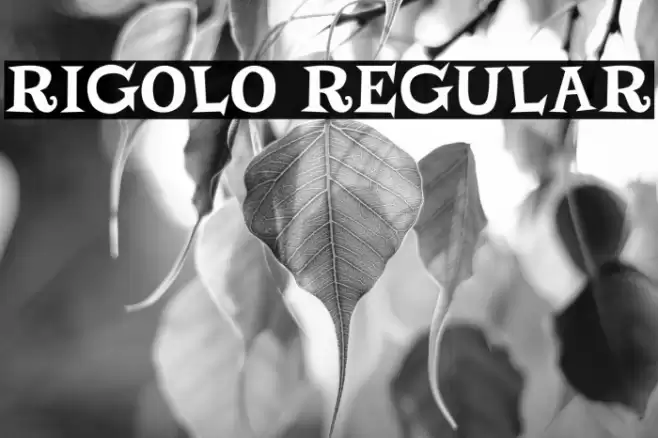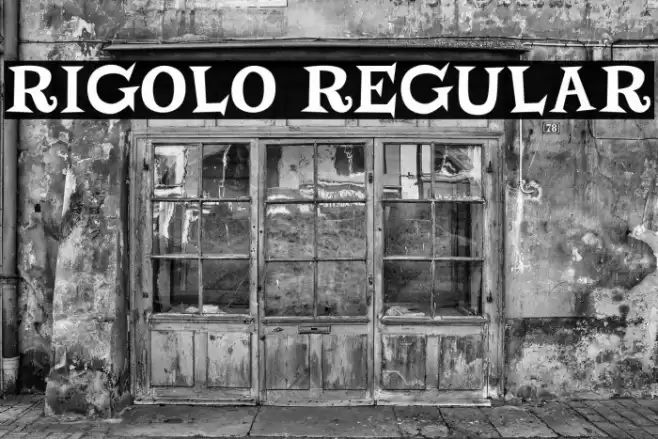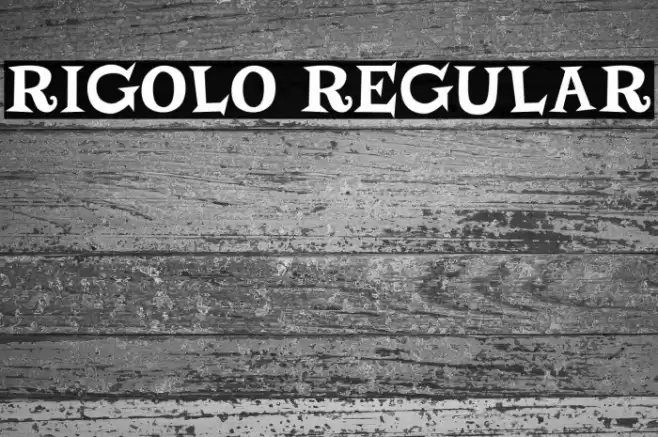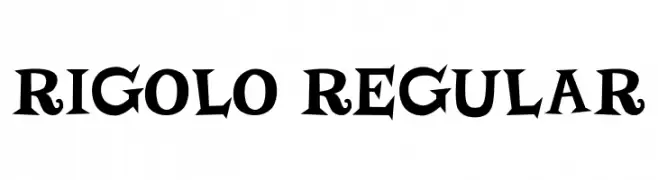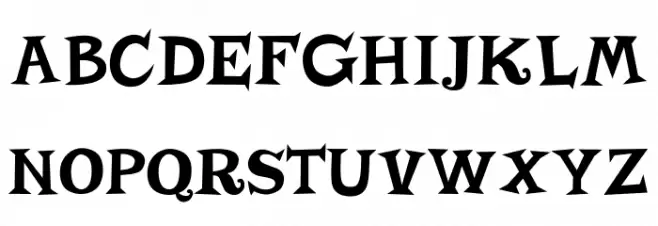
Rigolo Regular Font
Rigolo Regular Description
This font features a bold and playful design with a whimsical flair. The characters are characterized by their unique, exaggerated serifs and decorative elements that give them a lively and dynamic appearance. The uppercase letters are particularly striking, with sharp angles and curves that create a sense of movement and energy. The overall style is reminiscent of vintage circus or carnival posters, making it ideal for projects that require a touch of nostalgia and fun. The font maintains a consistent weight throughout, ensuring readability while still offering a distinctive and eye-catching look.
A bold, playful font with whimsical serifs and a vintage flair from Uncategorized fonts.
- Proposed Projects: Ideal for posters, logos, and branding projects that seek a playful and nostalgic touch.
- Overall Style: Vintage